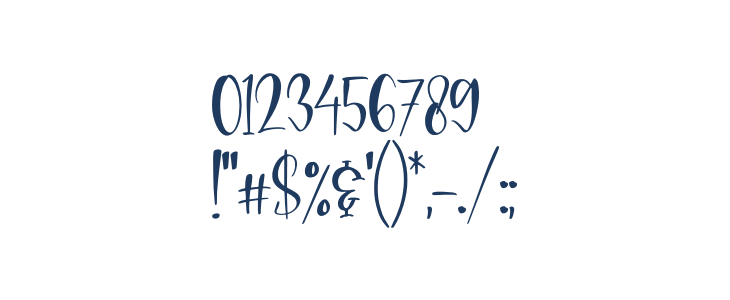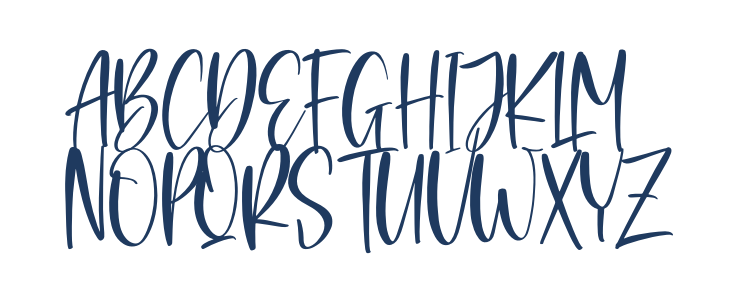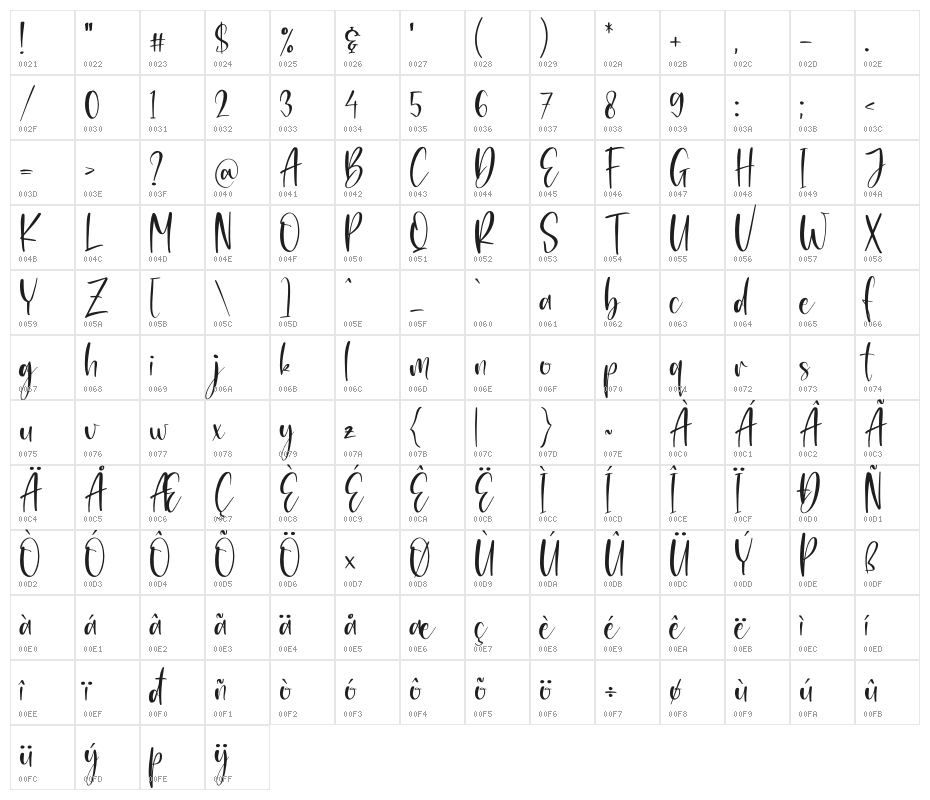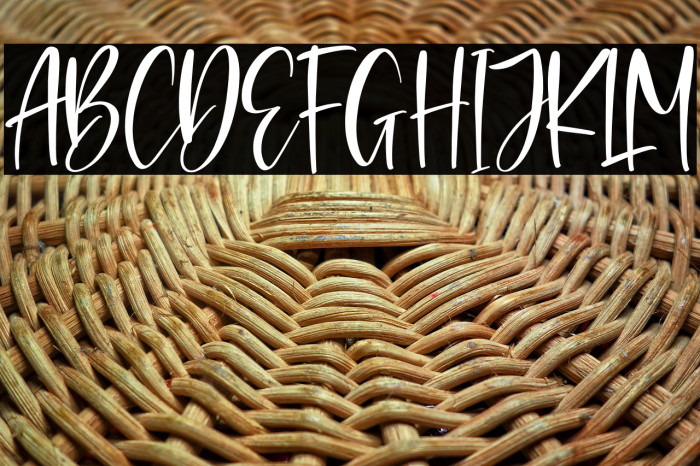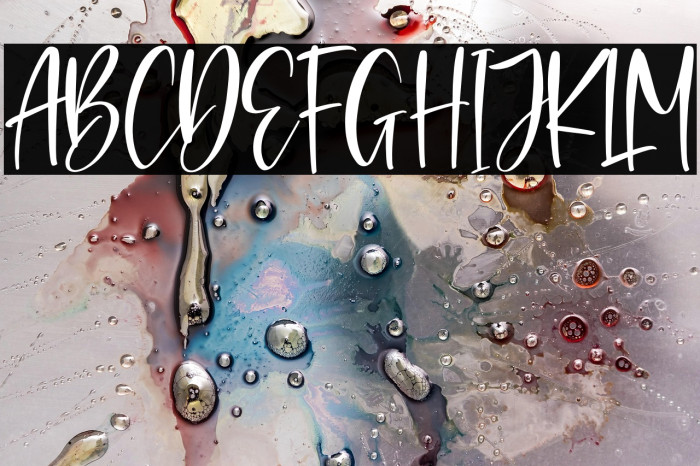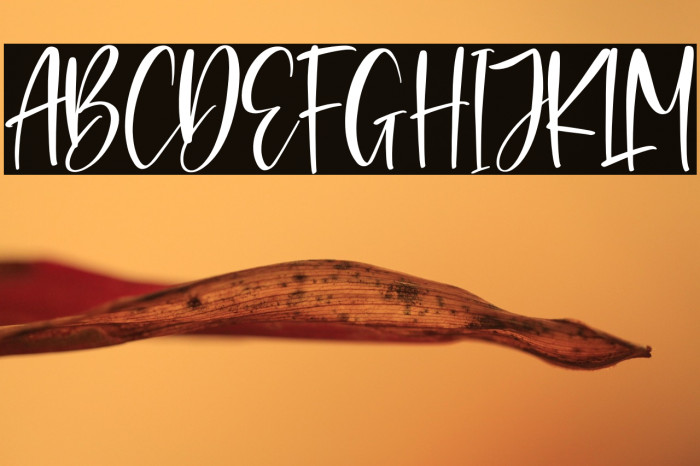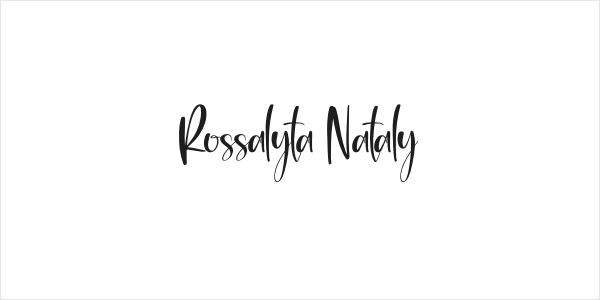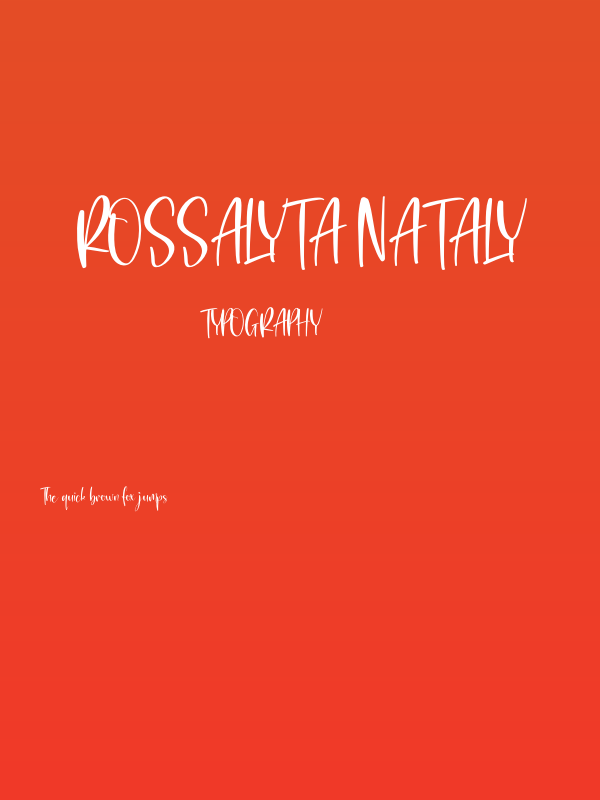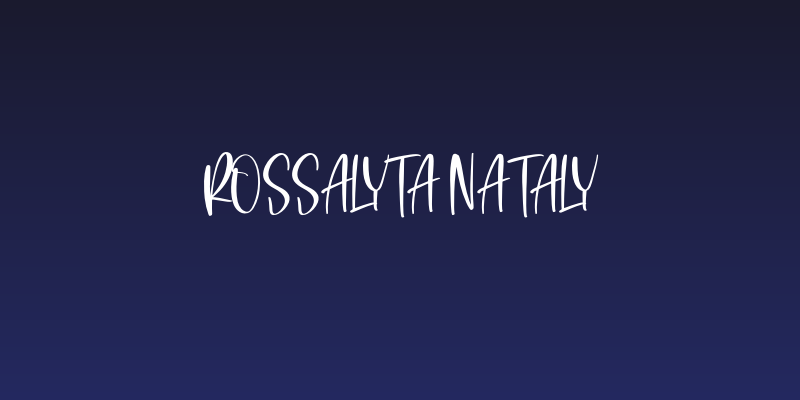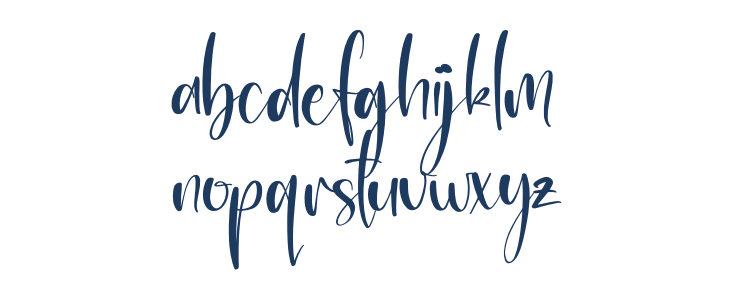
Rossalyta Nataly Font
Rossalyta Nataly Description
A playful, expressive handwritten script with tall, narrow letterforms and dynamic, varied stroke thickness. The characters have a casual, energetic feel with pronounced ascenders and descenders, and a loose, organic flow.
| Overall Style | Decorative, Playful, Modern |
| Use Case | Logos, Headlines, Invitations, Social media graphics |
| Proposed Projects | Greeting cards, invitations, branding, social media graphics, posters, quotes. |